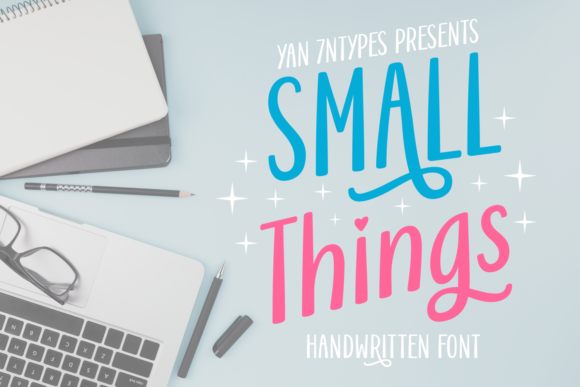
Introducing Small Things Font - The Exquisite Script Font That Weaves Magic Into Your Designs
Prepare to fall in love with Small Things Font, a captivating script font that exudes charm and elegance. Designed by the talented Yan (7NTypes), this font is meticulously crafted to evoke a sense of romance and personalization in your design projects. With its delicate strokes and playful curves, Small Things Font is the perfect choice for adding a touch of whimsy and charm to your creations.
Small Things Font is a versatile font that can be effortlessly incorporated into various design projects, including wedding invitations, greeting cards, posters, branding materials, and social media graphics. Its timeless appeal and universal charm make it an ideal choice for designers, crafters, and creative professionals seeking a font that adds a unique and eye-catching touch to their work.
Embrace the allure of Small Things Font and unlock a world of creative possibilities. Let your imagination soar as you craft enchanting designs that capture hearts and leave a lasting impression.